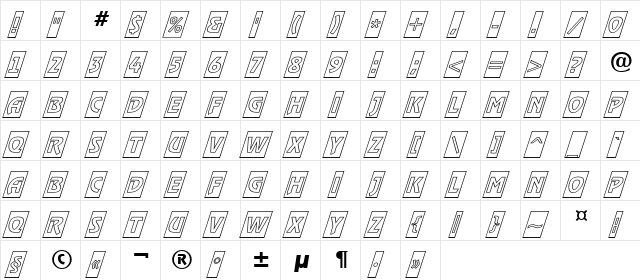
a_RewinderTitulCmOtlObl Regular
Design Context for a_RewinderTitulCmOtlObl Typeface
a_RewinderTitulCmOtlObl is a composed and adaptable typeface that performs quietly and consistently across a wide range of design contexts.